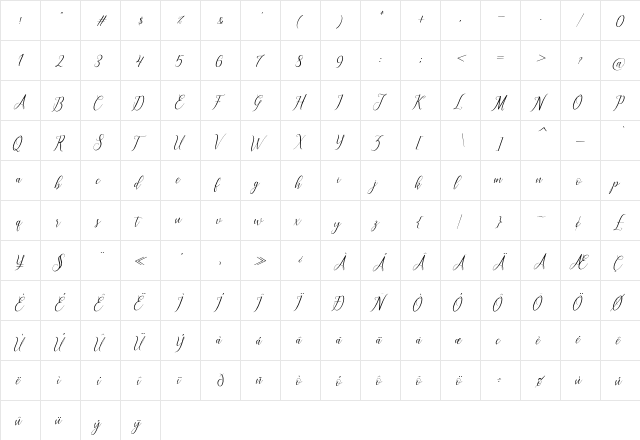
brillyo Slant
Design Context for brillyo Typeface
brillyo is a composed and adaptable typeface that performs quietly and consistently across a wide range of design contexts.